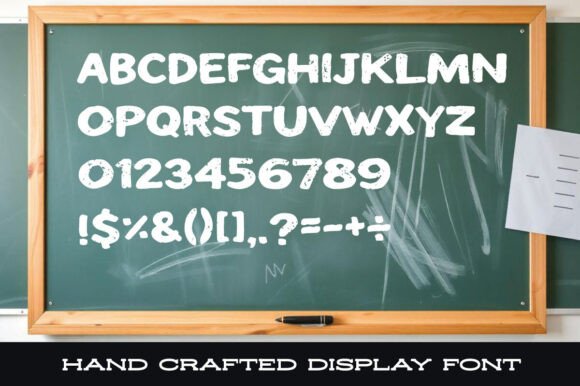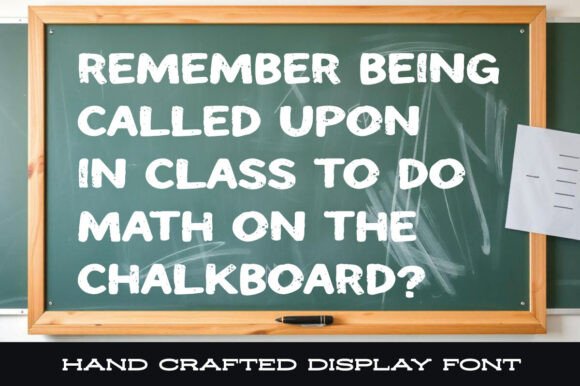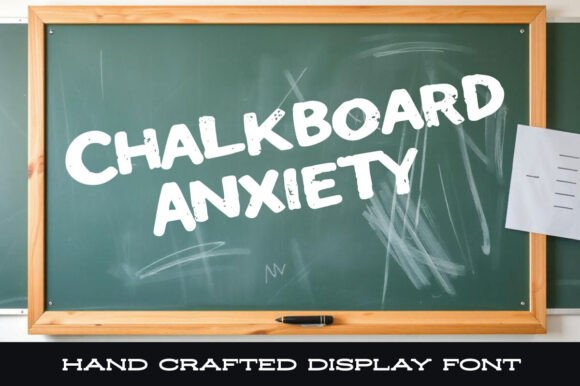
Introducing Chalkboard Anxiety Font: Unleash the Chaos of the Classroom
Are you tired of using the same old fonts in your designs? Do you want to add a touch of nostalgia and tension to your projects? Look no further than the Chalkboard Anxiety Font, a hand-drawn typeface that captures the raw energy of a chalk-dusted classroom meltdown.
The Inspiration Behind Chalkboard Anxiety
Imagine a classroom where the chalk is flying, the students are panicking, and the teacher is trying to regain control. The Chalkboard Anxiety Font is inspired by this chaotic scene, where the nervous energy is palpable. The font’s creator aimed to capture the uneven strokes, jittery lines, and smudgy textures that occur when someone is writing with a trembling hand. The result is a font that exudes a sense of urgency and anxiety, perfect for designers and crafters looking to add a unique touch to their projects.
Characteristics of Chalkboard Anxiety Font
The Chalkboard Anxiety Font is a true one-of-a-kind typeface, boasting the following characteristics:
- Hand-drawn with love and care: Each letter has been meticulously crafted to resemble a handwritten note, complete with imperfections and quirks.
- Uneven strokes and jittery lines: The font’s strokes are intentionally uneven, giving it a raw, expressive feel that’s reminiscent of a chalkboard.
- Smudgy textures: The font’s textures are smudgy and rough, evoking the feeling of chalk dust and scribbles.
- Nostalgic twist: The Chalkboard Anxiety Font is perfect for designers and crafters looking to evoke a sense of nostalgia in their projects.
Perfect for School-Themed Designs and Horror Posters
The Chalkboard Anxiety Font is ideal for a variety of design projects, including:
- School-themed designs: Whether you’re creating a poster for a school event or a project for a classroom, this font is sure to capture the essence of the educational experience.
- Horror posters: The font’s eerie, anxious feel makes it perfect for horror-themed designs, such as movie posters or haunted house advertisements.
- To-do lists and pop quizzes: Add a touch of chaos to your to-do lists and pop quizzes with the Chalkboard Anxiety Font.
How to Use Chalkboard Anxiety Font in Your Designs
Using the Chalkboard Anxiety Font in your designs is easy. Here are a few tips to get you started:
- Pair it with bold fonts: Combine the Chalkboard Anxiety Font with bold, sans-serif fonts to create a striking contrast.
- Experiment with colors: Try pairing the font with bold, bright colors to amplify its anxious energy.
- Use it sparingly: While the Chalkboard Anxiety Font is perfect for headlines and titles, use it sparingly in body text to avoid overwhelming your readers.
The Chalkboard Anxiety Font is a unique and expressive typeface that’s perfect for designers and crafters looking to add a touch of nostalgia and tension to their projects. With its hand-drawn strokes, jittery lines, and smudgy textures, this font is sure to capture the essence of a chaotic classroom. Whether you’re creating school-themed designs, horror posters, or simply want to add a touch of anxiety to your to-do lists, the Chalkboard Anxiety Font is the perfect choice.